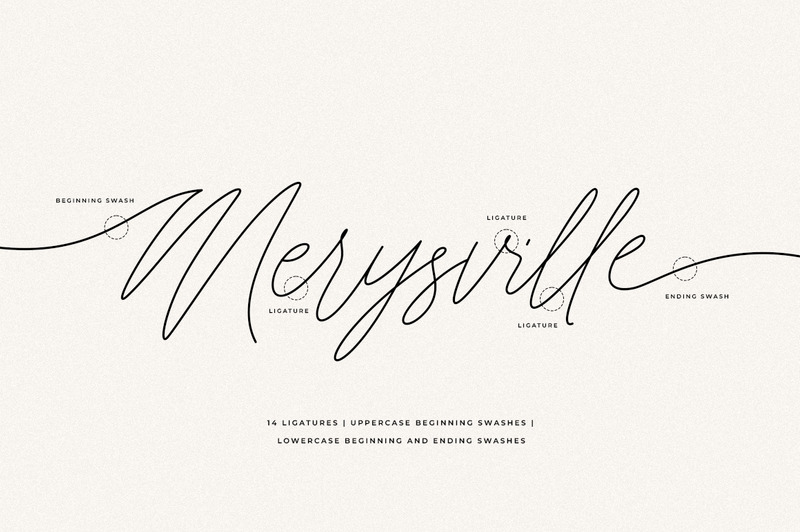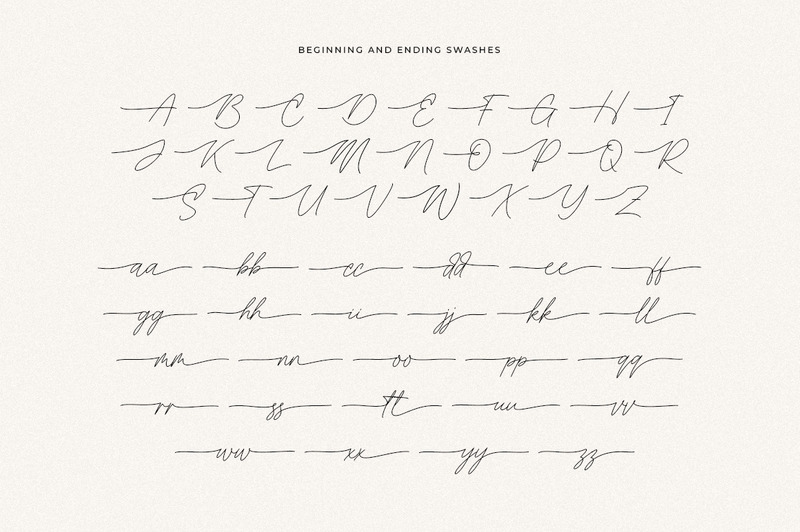
Merysville Signature Font With Tails
Merysville is a modern signature font with tails, described by an elegant touch, perfect for your favorite projects. It looks stunning on wedding invitations, thank you cards, quotes, greeting cards, logos, branding, business cards, social media posts, magazines, marketing materials, and every other design that needs a handwritten touch. Fall in love with its incredibly distinct and timeless style and use it to create spectacular designs!
Merysville Features:
- Uppercase and Lowercase
- Numerical and Punctuation
- Beginning and Ending Swashes
- Ligatures
- Multilingual Language
This character set supports the following 21 languages: Afrikaans, Basque, Breton, Catalan, Danish, Dutch, English, Finnish, French, Gaelic (Irish, Scots), German, Icelandic, Indonesian, Irish, Italian, Norwegian, Portuguese, Saami (Southern), Spanish, Swahili, Swedish.